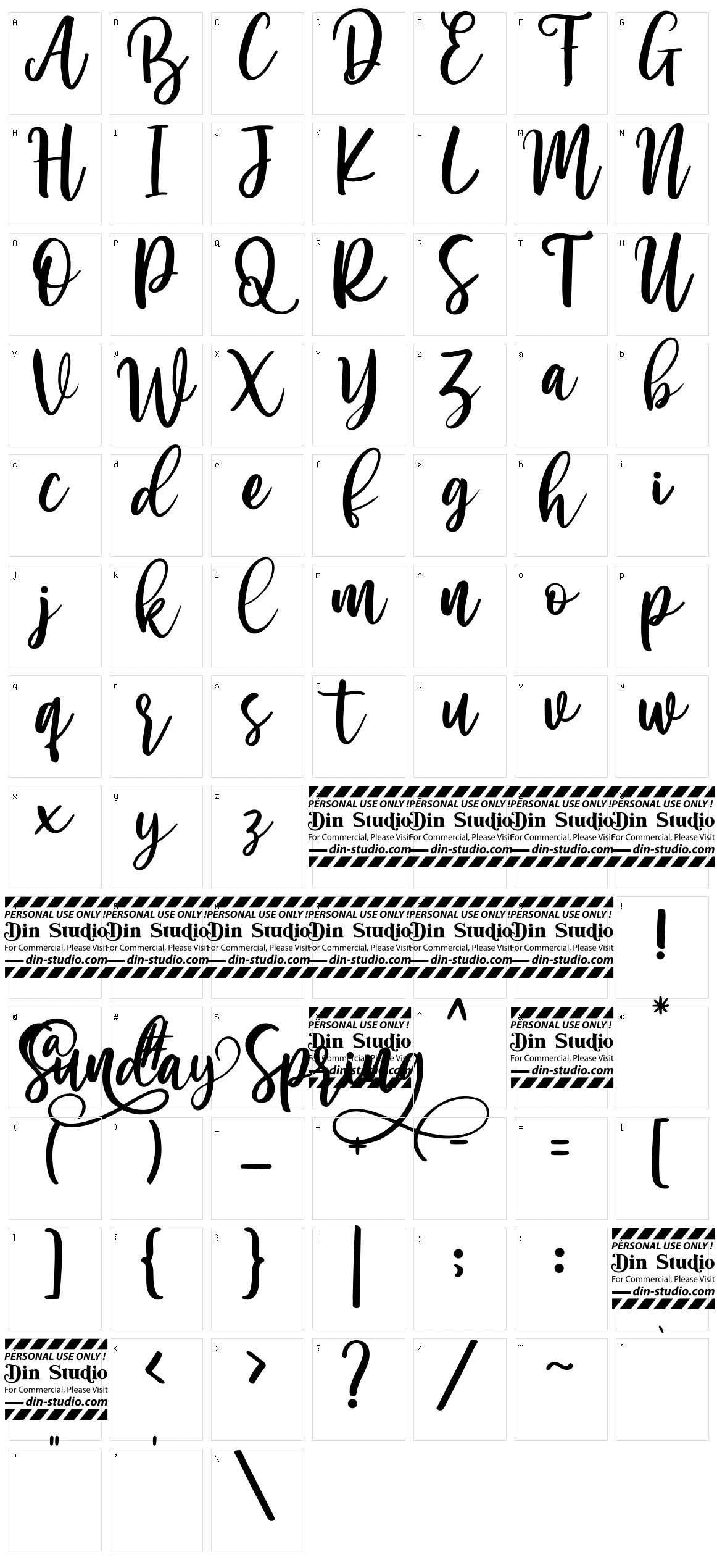
The free font Sunday Spring is carefully designed by Din Studio, showcasing a thoughtful balance of creativity and usability and falls under the Script font style. When you download the ZIP file, it contains only 339.43 KB of font files, making it lightweight and quick to download. Please review the license details below to understand permitted usage and distribution rights. If license information is not available, we recommend using this font for personal projects only or contacting the author directly for commercial usage permissions.